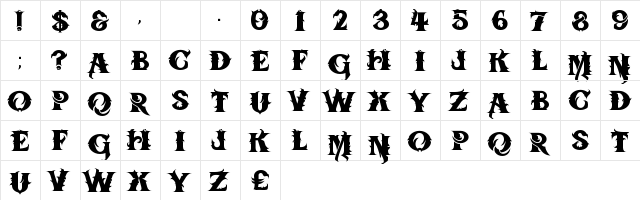
BTX-Chaos-Made Regular
| Foundry | Betwixt Designs |
| Designer | Betwixt Designs |
Design Context for BTX-Chaos-Made Typeface
BTX-Chaos-Made is a composed and adaptable typeface that performs quietly and consistently across a wide range of design contexts.